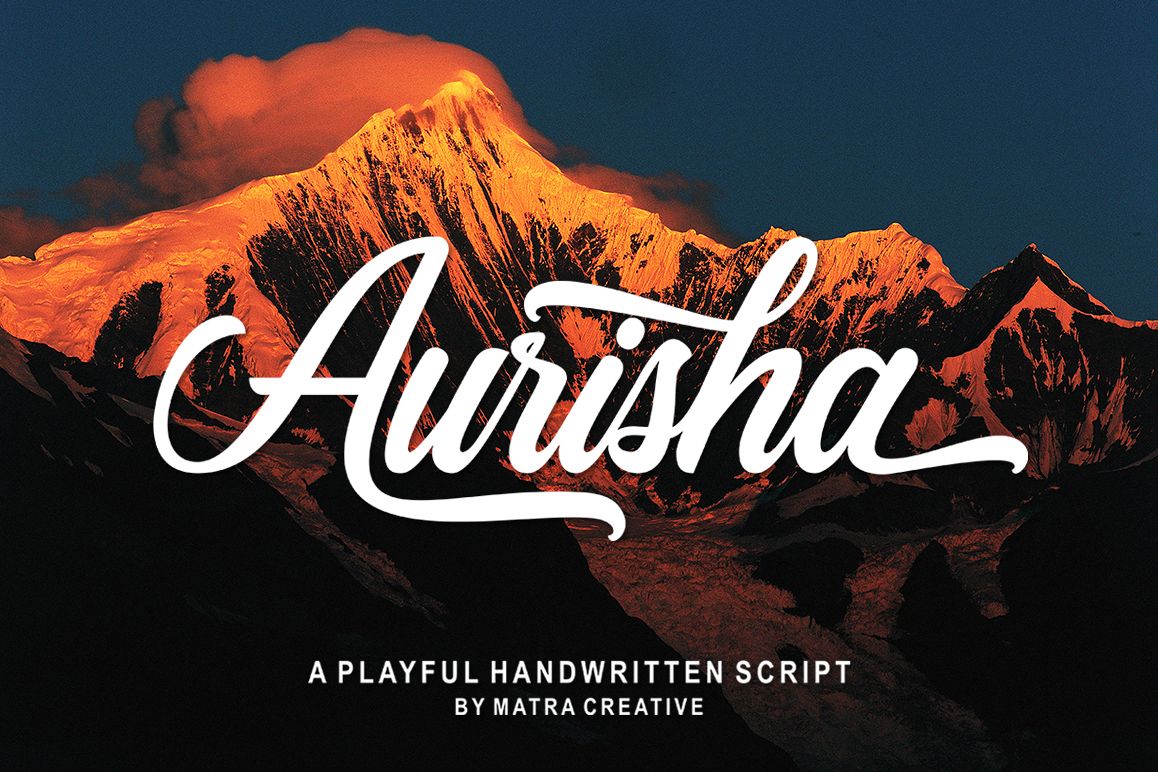
Aurisha Script
Aurisha script
Aurisha - Handwritten Font is an brush script font based on the expression of real handwriting, lets you transform type into an exciting and beautiful piece of work. Hand-lettered look adds a real human touch to things and comes along with a lot of loving details.
Aurisha- Handwritten Font has lots of alternates that gives you possibility to build your text almost like handwriting with all the charming imperfections and variations that a real handwriting has. Aurisha will work perfectly for fashion, e-commerce brands, trend blogs, wedding boutiques or any business that wants to appear upscale and chic.